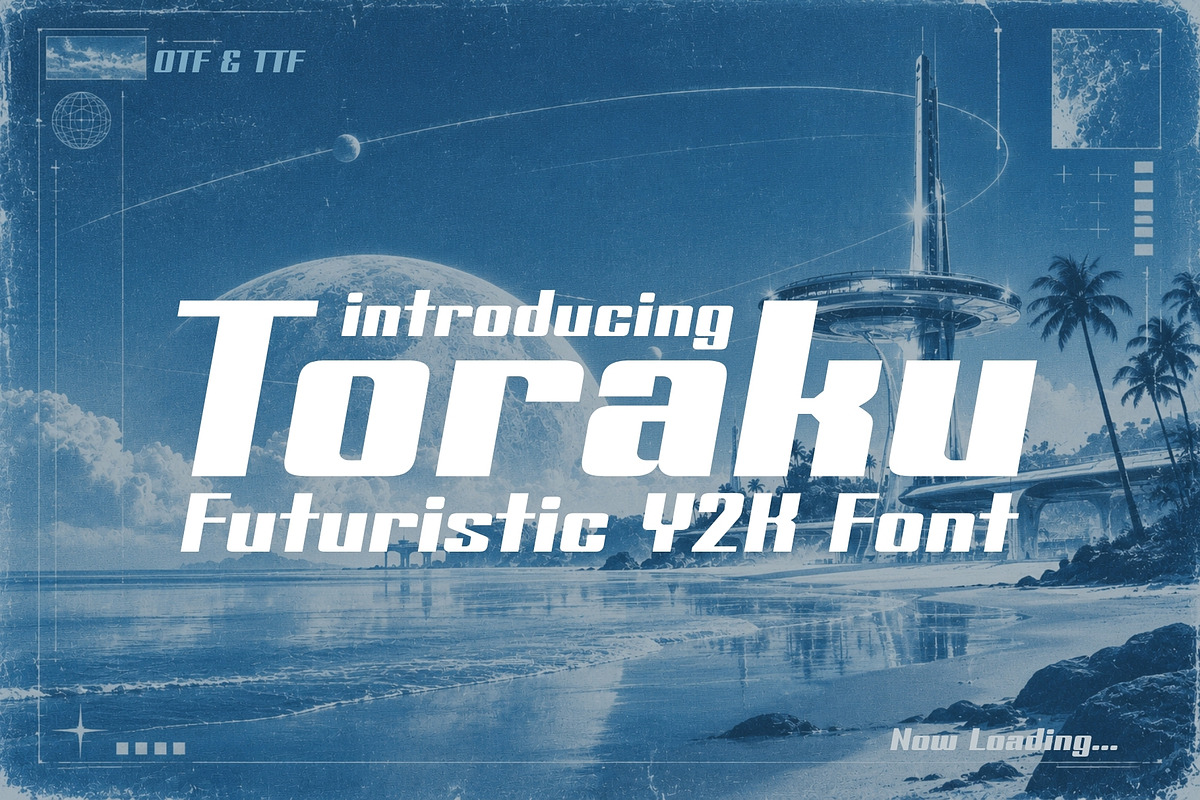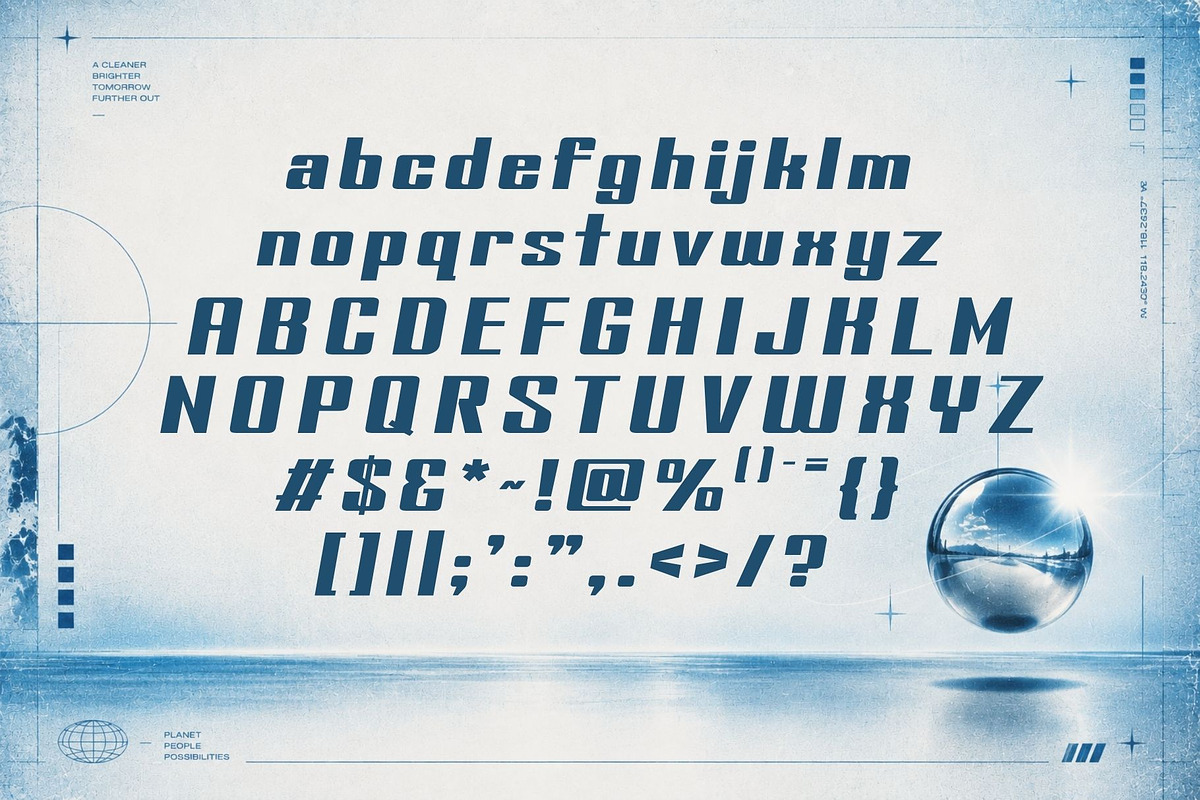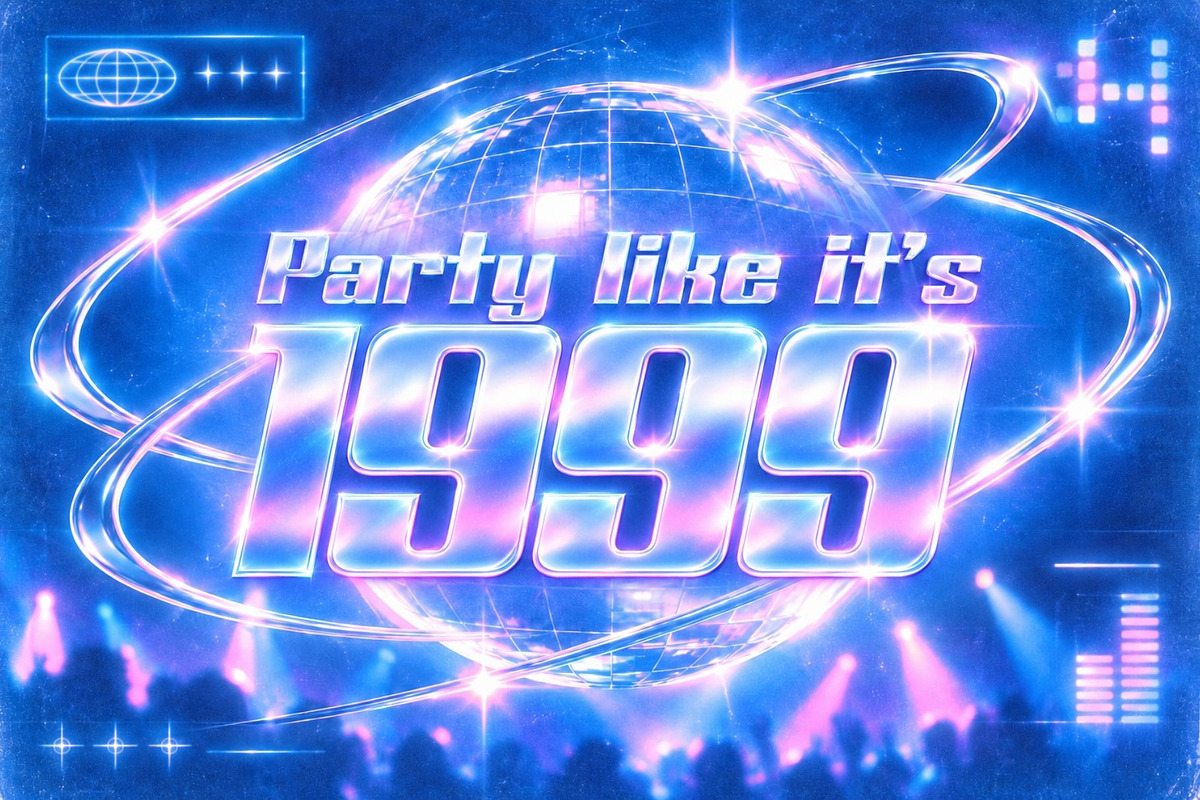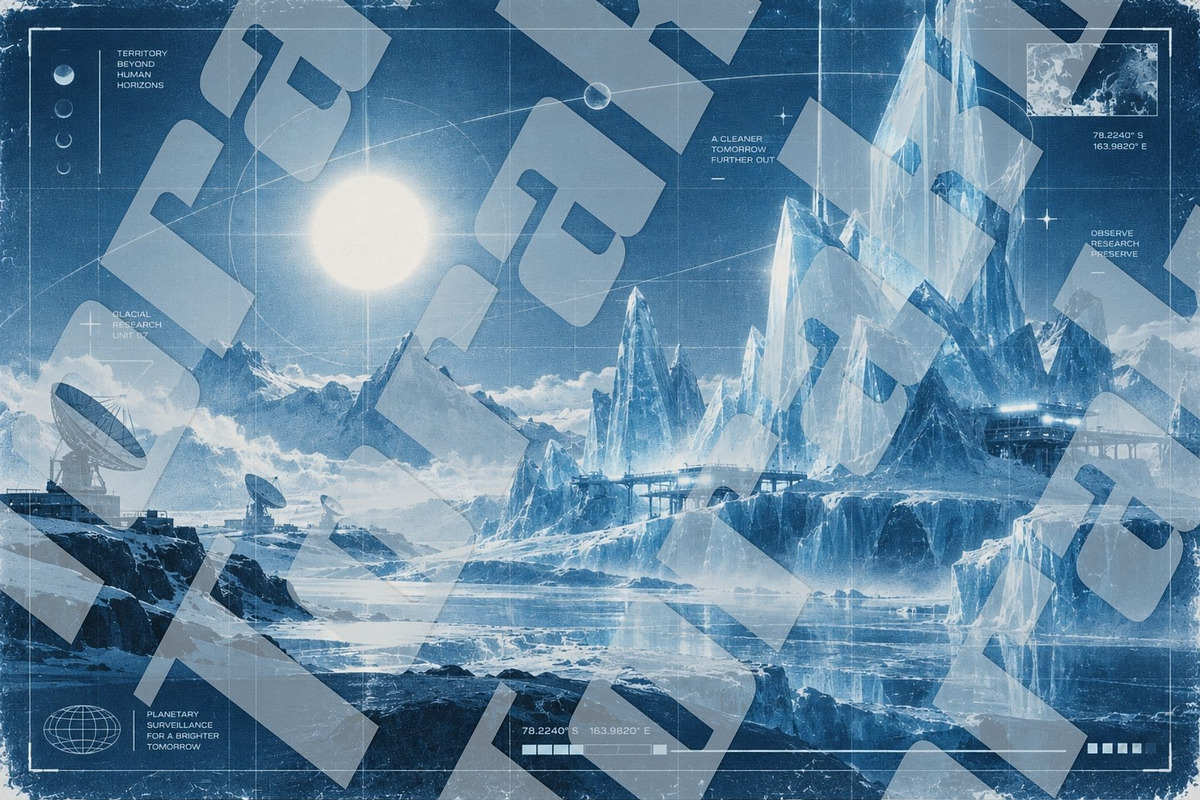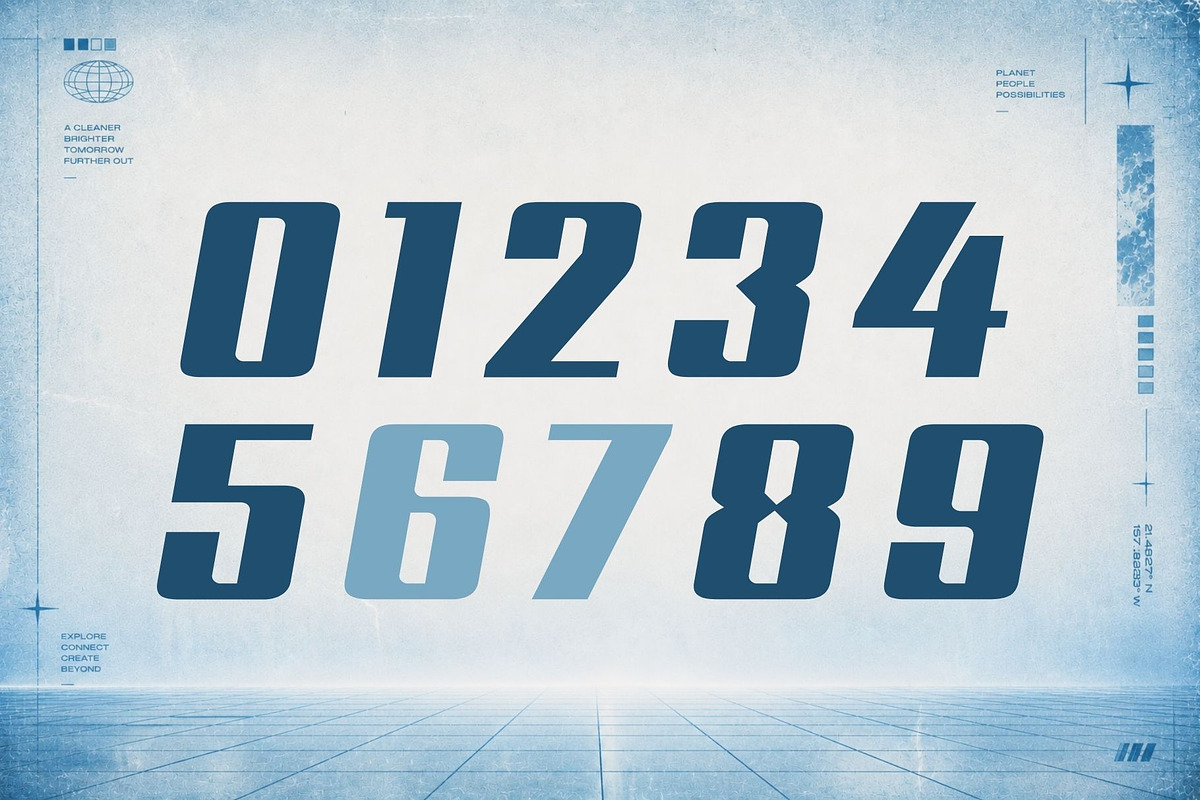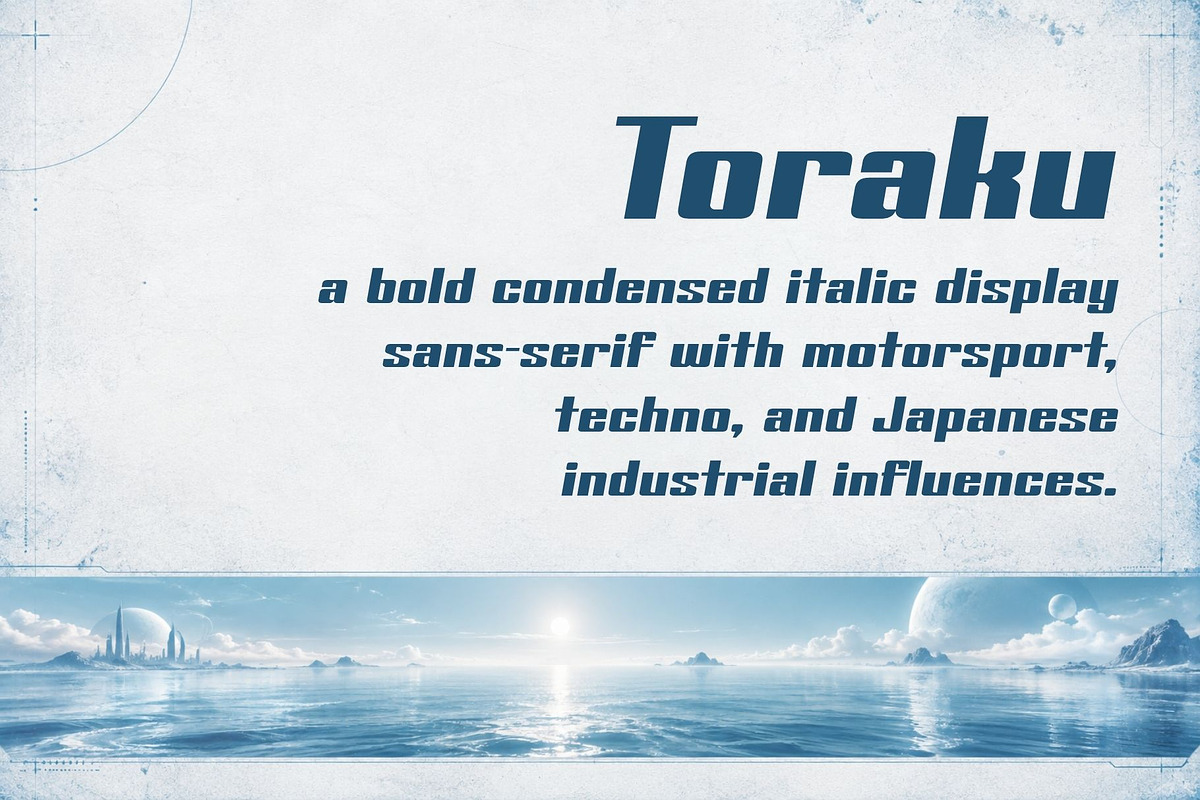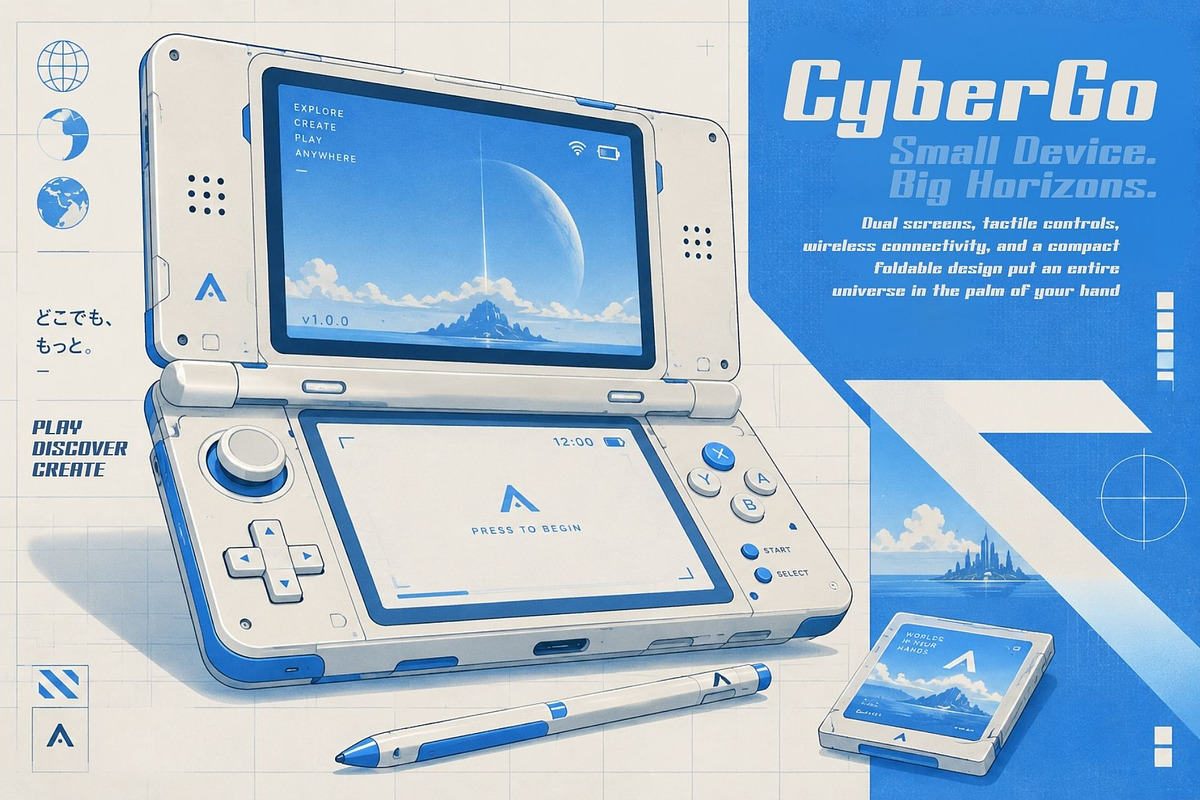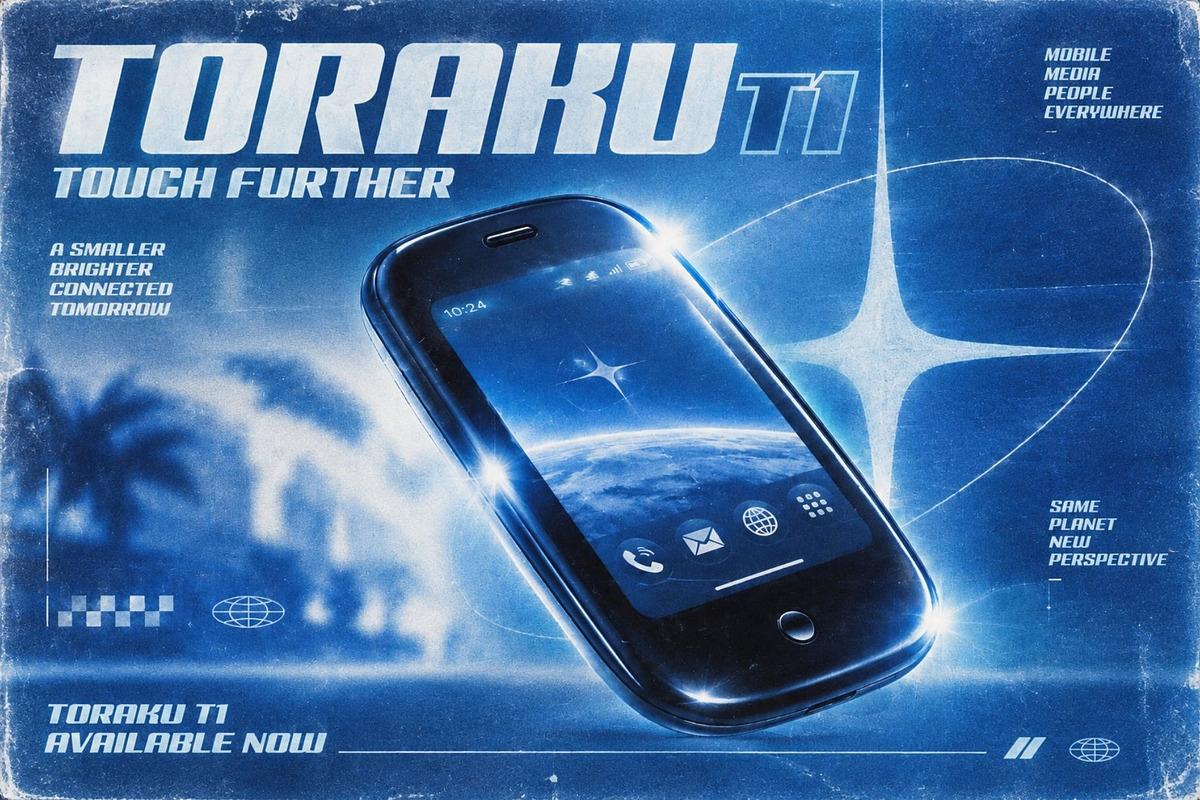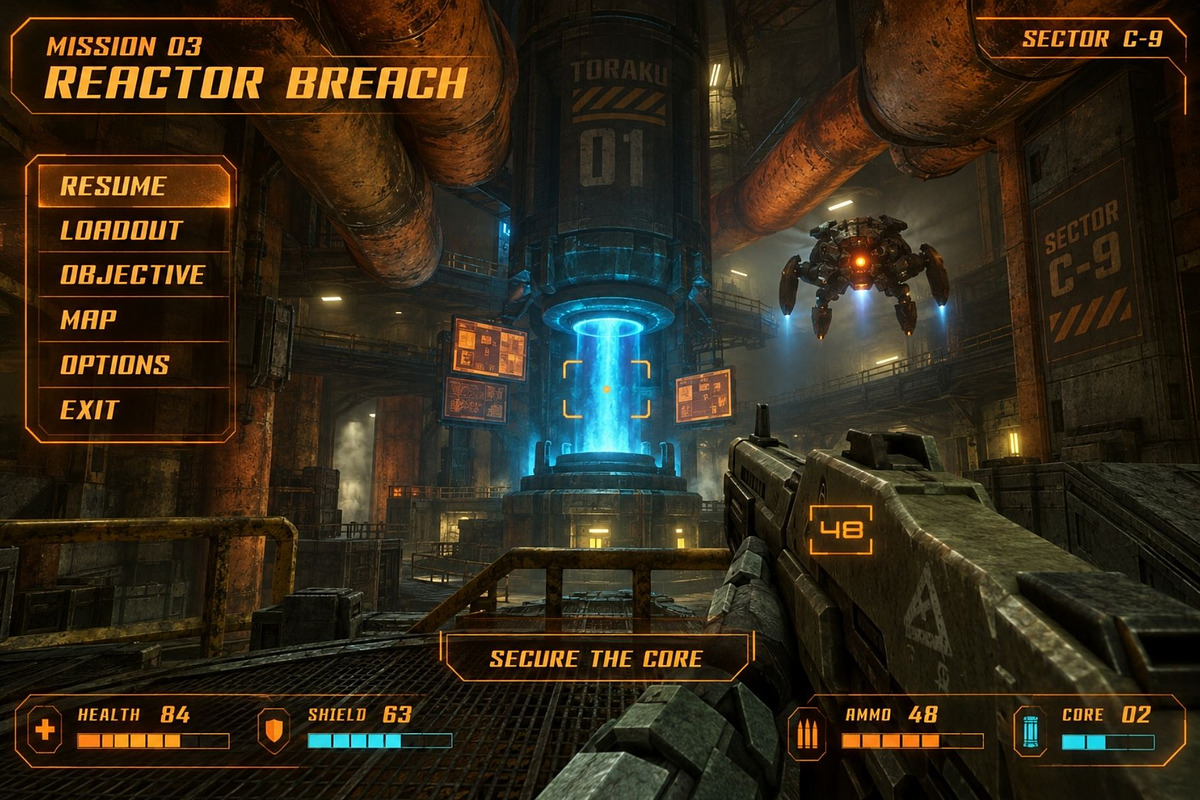
Toraku - Futuristic Y2K Display
Toraku is a high-impact condensed display typeface built for speed.
Heavy, compact, and aggressively slanted forward, Toraku brings the visual energy of Japanese motorsport graphics, 1990s racing culture, performance automotive branding, techno-industrial design, and modern athletic typography into one powerful display font. Every letter feels engineered to move, making Toraku an ideal choice for designs that need to feel fast, muscular, technical, and impossible to ignore.
Rather than relying on traditional rounded sans-serif construction, Toraku uses squared curves, softened rectangular corners, narrow counters, and tightly controlled geometric forms. Its rounded-square O, compact A, angular K, and dense proportions create a machine-built personality while retaining enough warmth and character to avoid feeling sterile or overly futuristic.
The strong forward italic pushes every word into motion. Even standing still, Toraku feels like it is accelerating.
Its aesthetic sits at the intersection of Japanese racing liveries, performance motorcycles, sportswear, mecha and anime title graphics, cyber-athletic branding, Y2K motorsport culture, futuristic advertising, and industrial product design. It feels equally at home across the side of a race car, a motorcycle fairing, a performance jacket, an esports campaign, a sneaker graphic, or the title screen of a futuristic racing game.
Toraku is especially effective when used large. Its condensed construction allows designers to create massive headlines without sacrificing space, while the extreme weight gives logos, posters, packaging, apparel, and title graphics an immediate visual presence.
Use Toraku for motorsport branding, racing posters, automotive logos, motorcycle graphics, sportswear, streetwear, esports identities, techno events, album covers, gaming titles, anime-inspired designs, product packaging, performance campaigns, futuristic editorials, racing team graphics, and bold advertising.